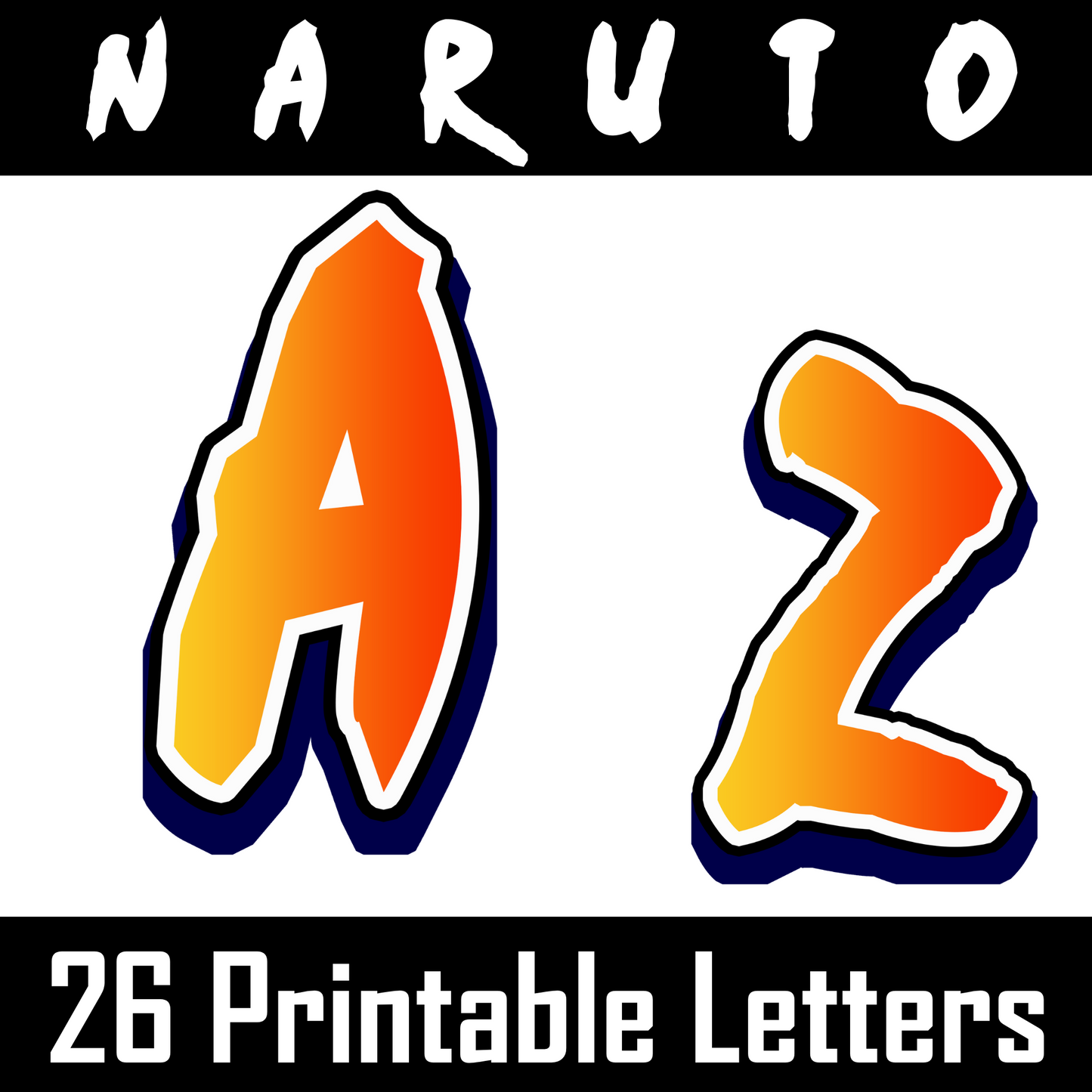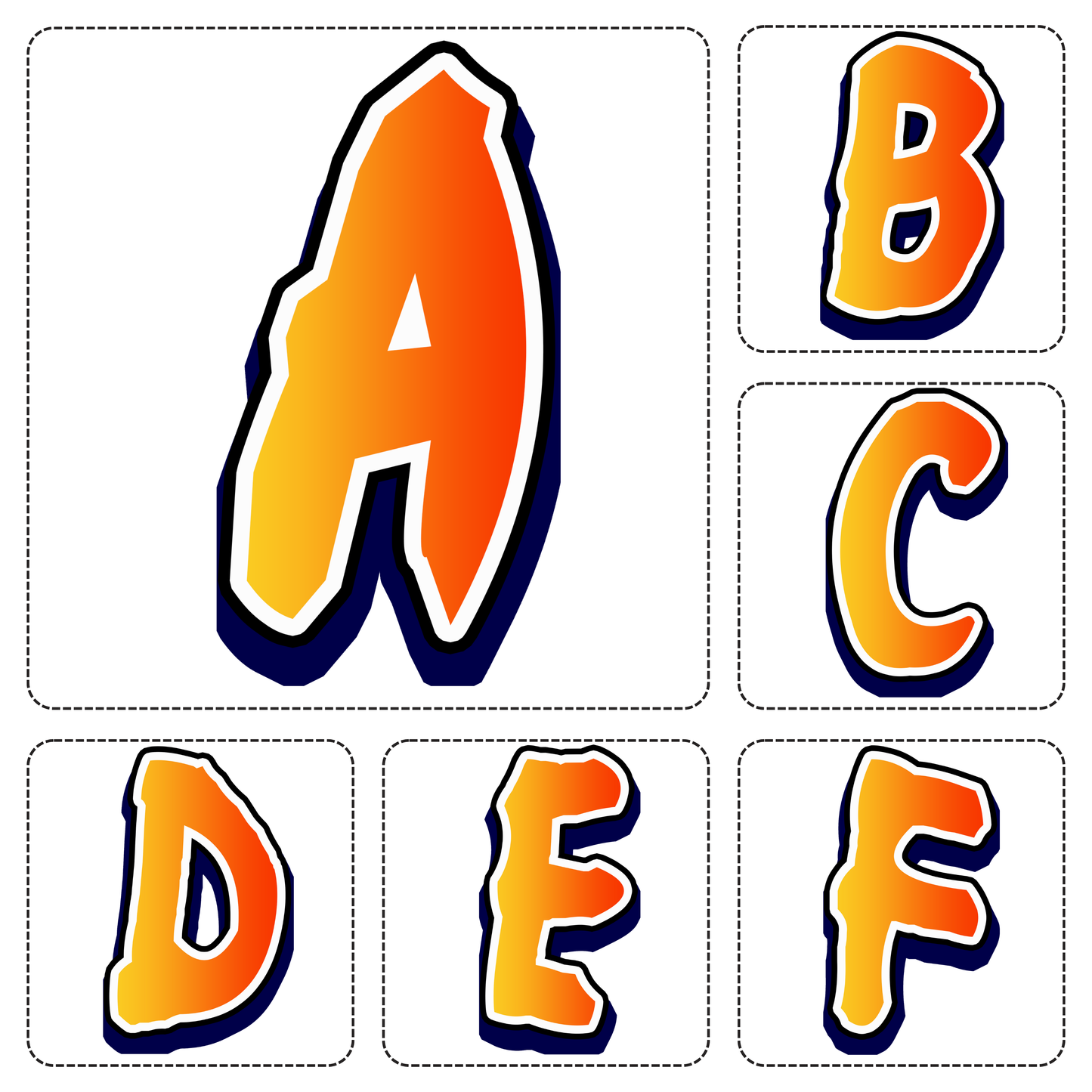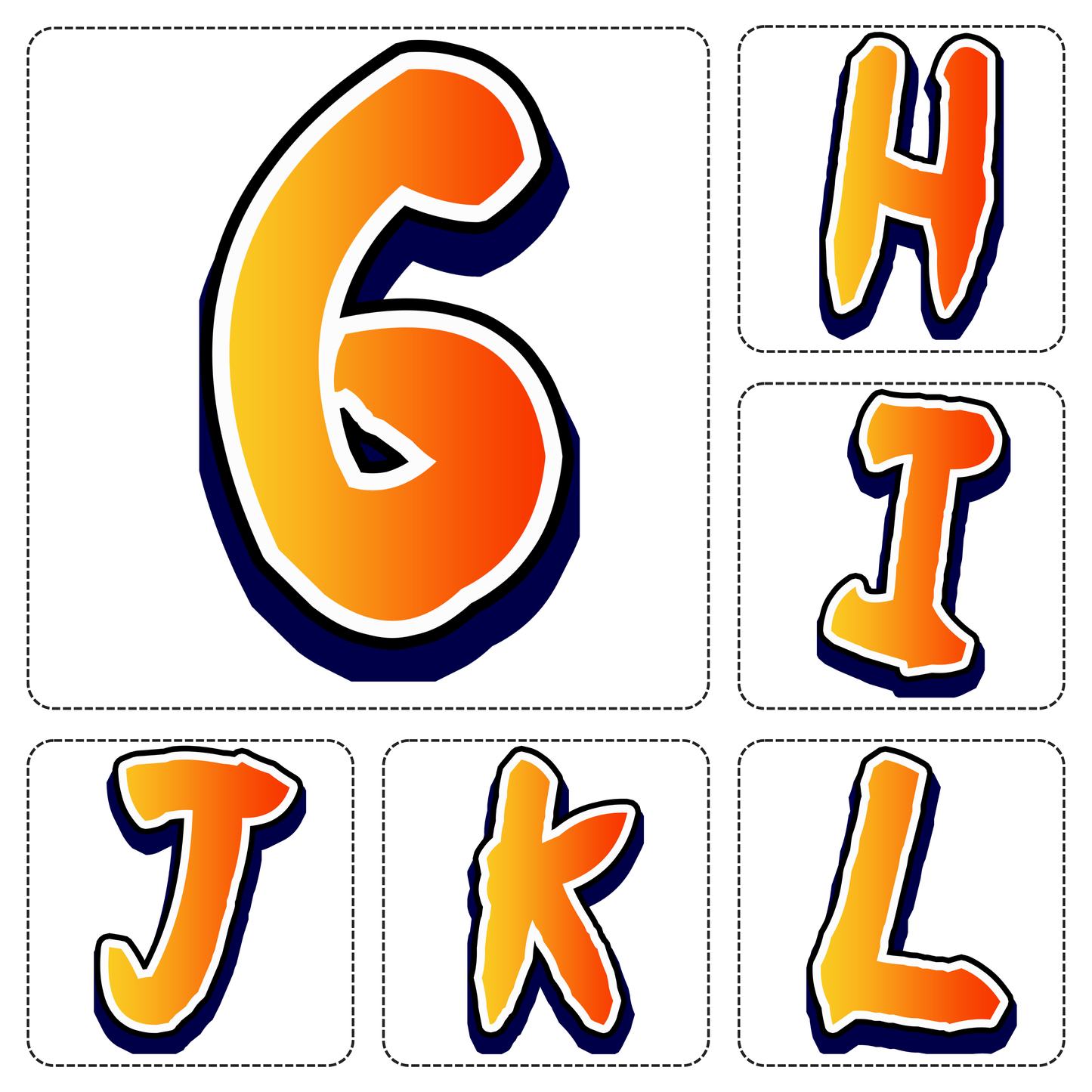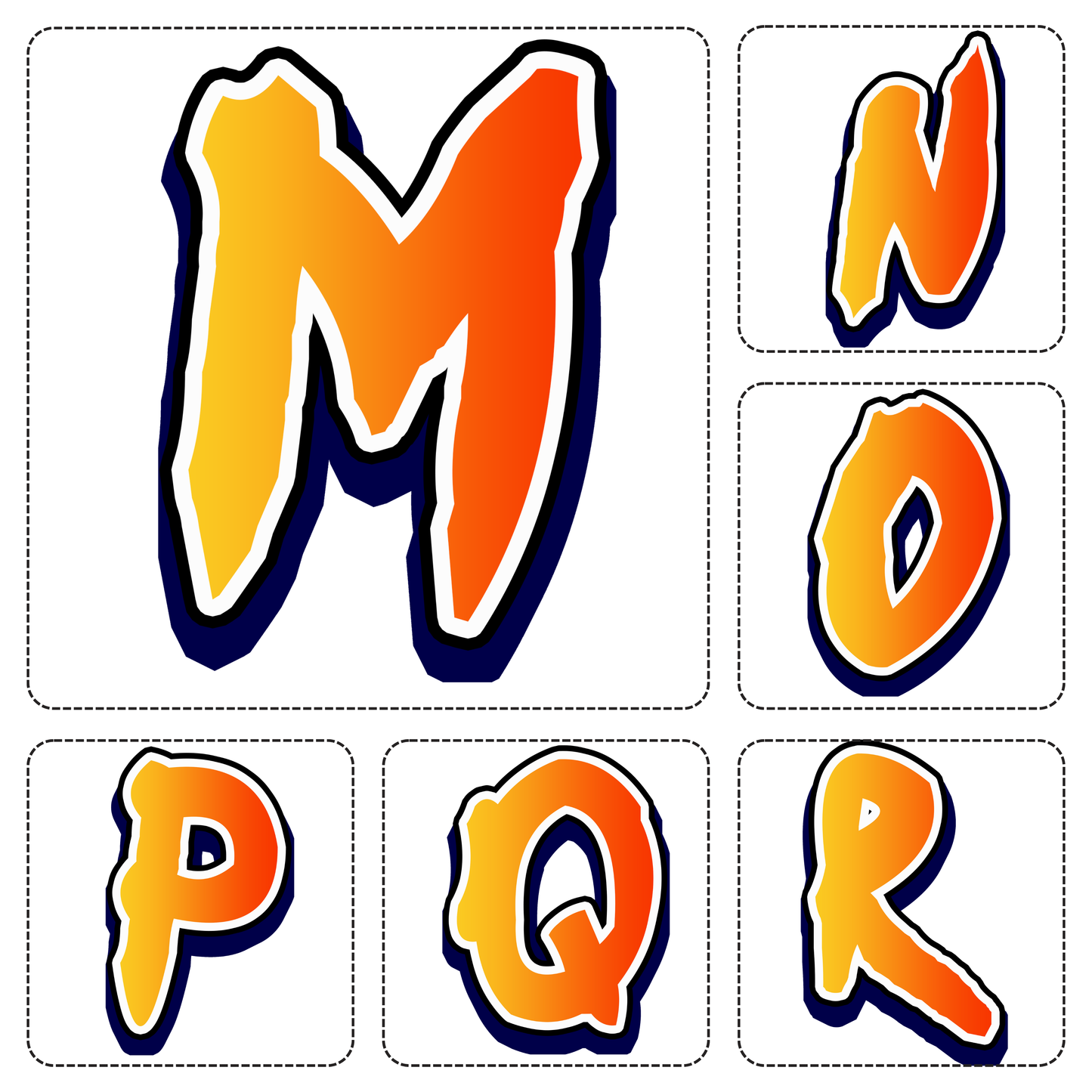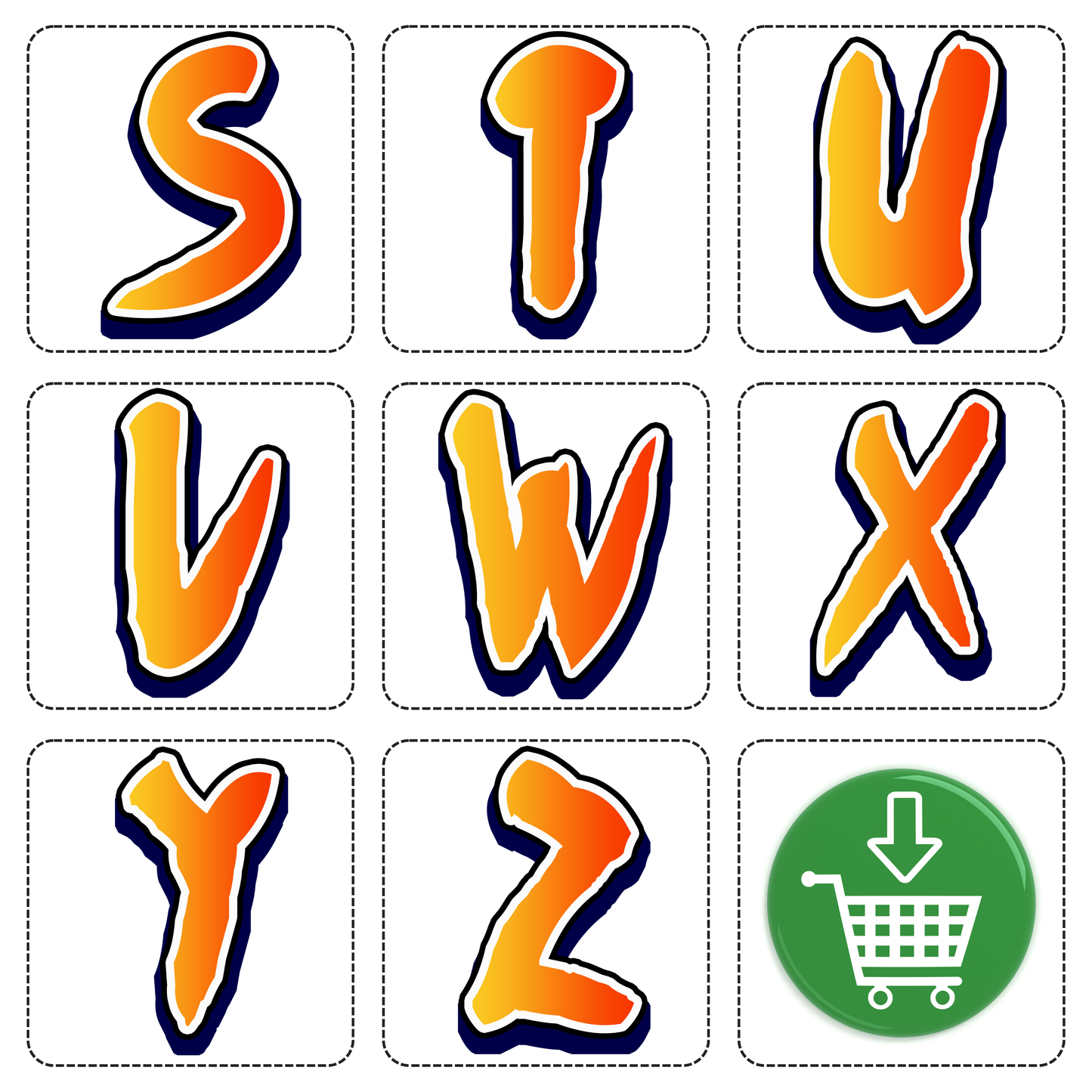
Naruto Alphabet Letters A–Z
Unleash your ninja creativity with this full set of Naruto-style alphabet letters! Each letter from A to Z is designed with vibrant orange gradients, bold outlines, and dynamic shadows—capturing the energy of your favorite anime universe. Perfect for anime-themed classroom decor, birthday banners, homeschool printables, and fan crafts.